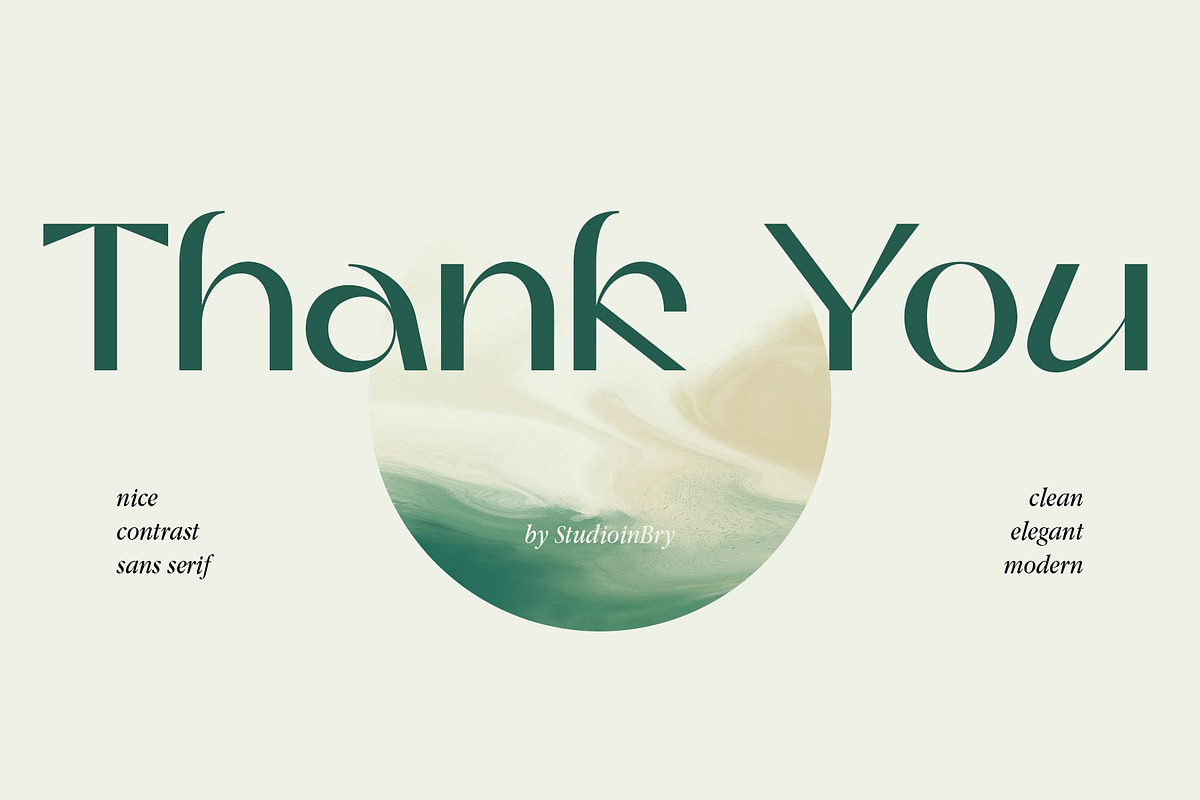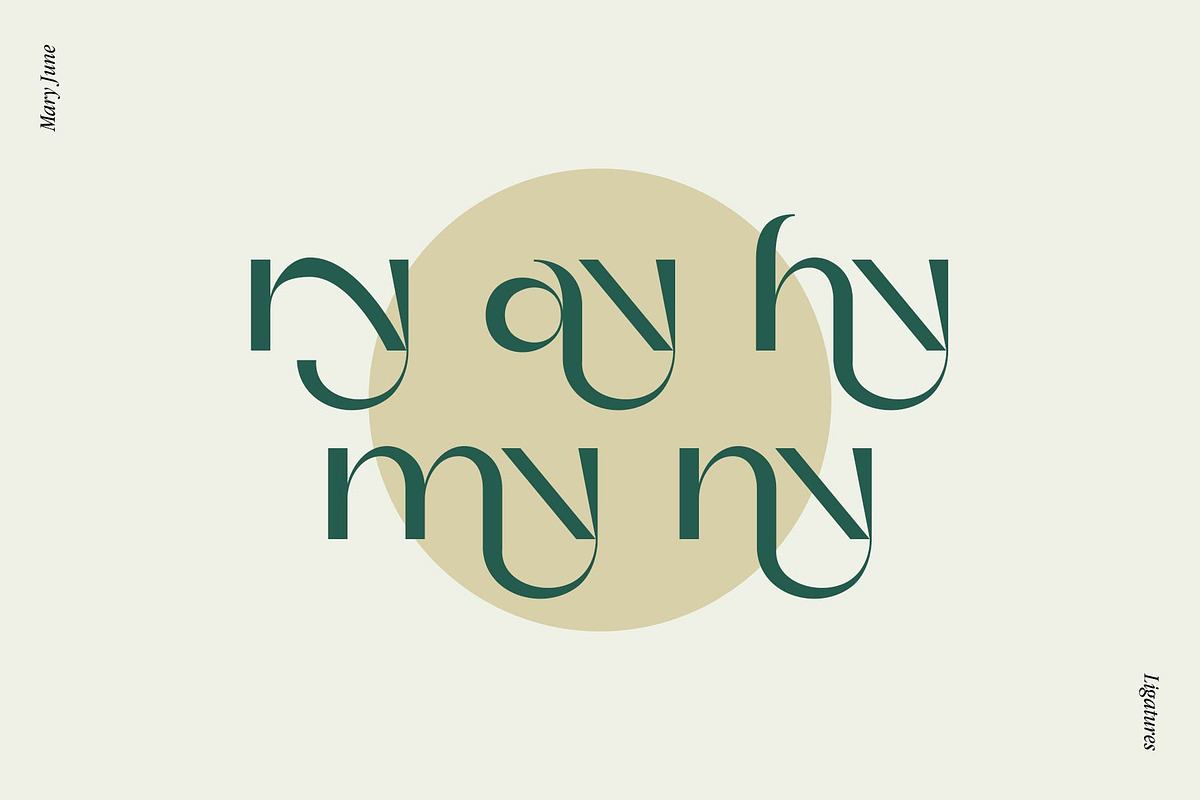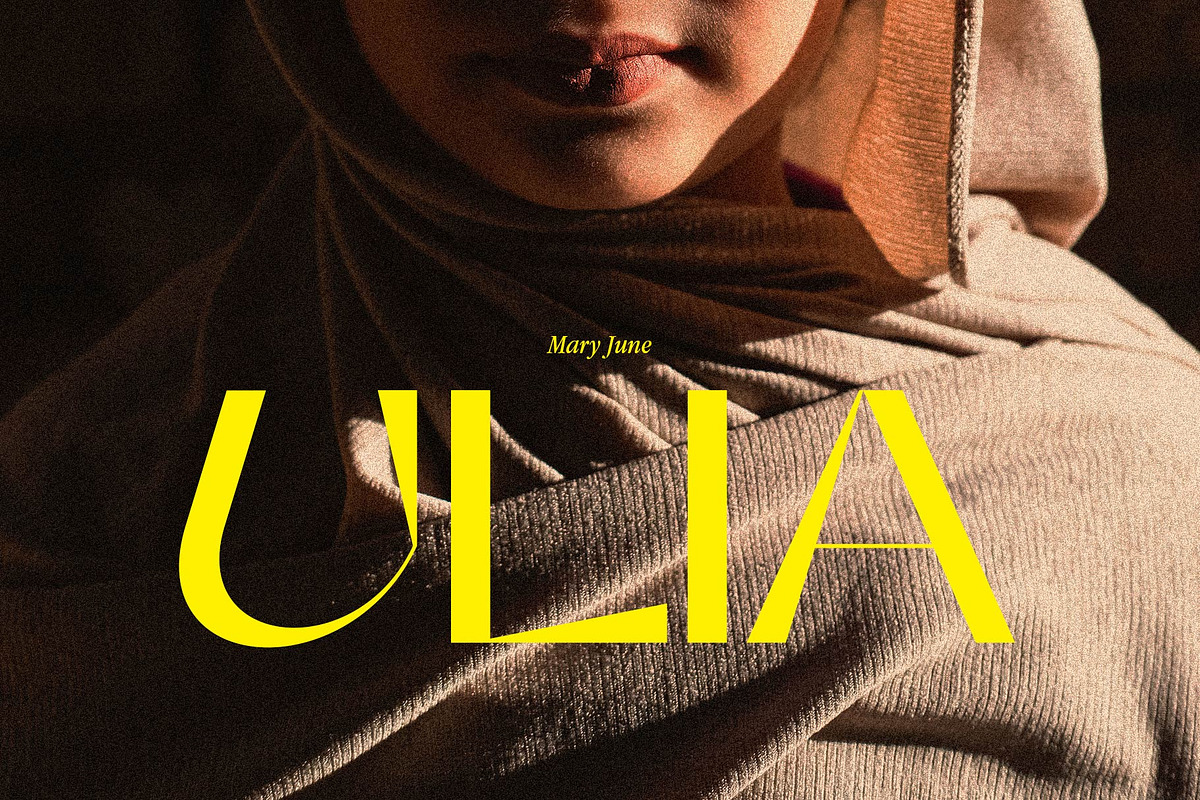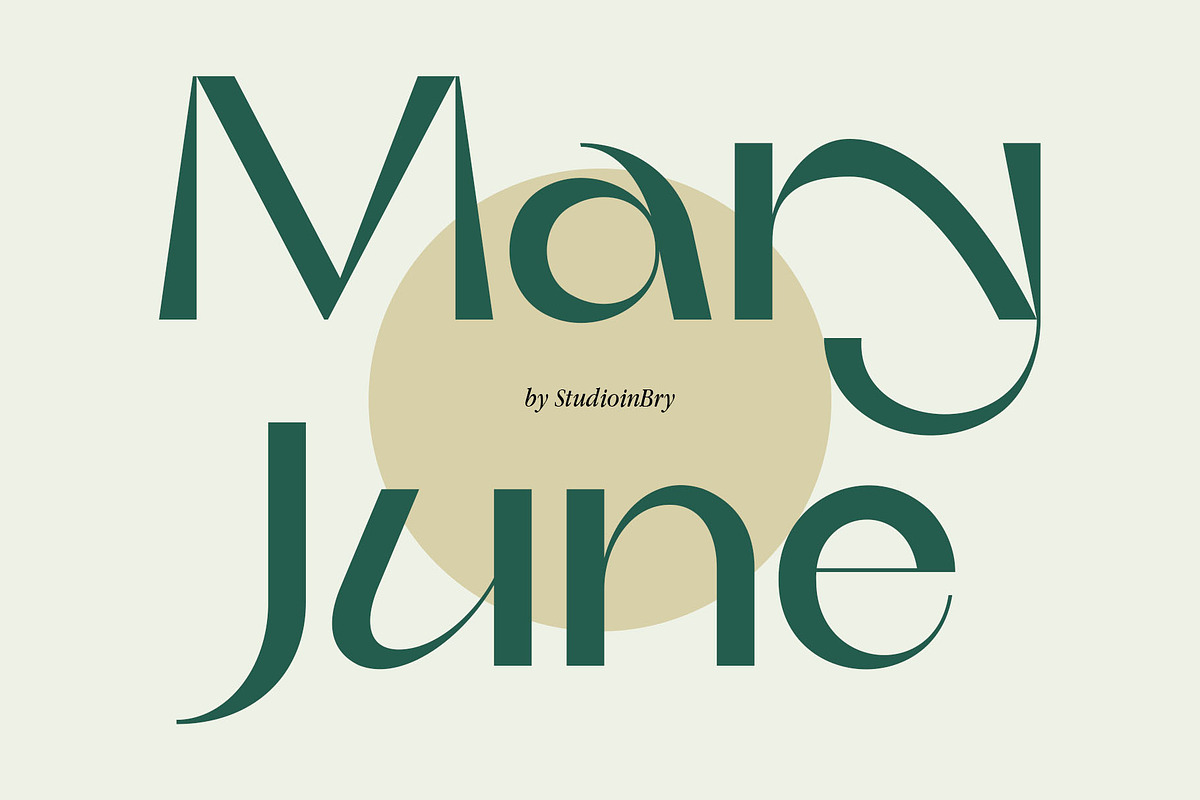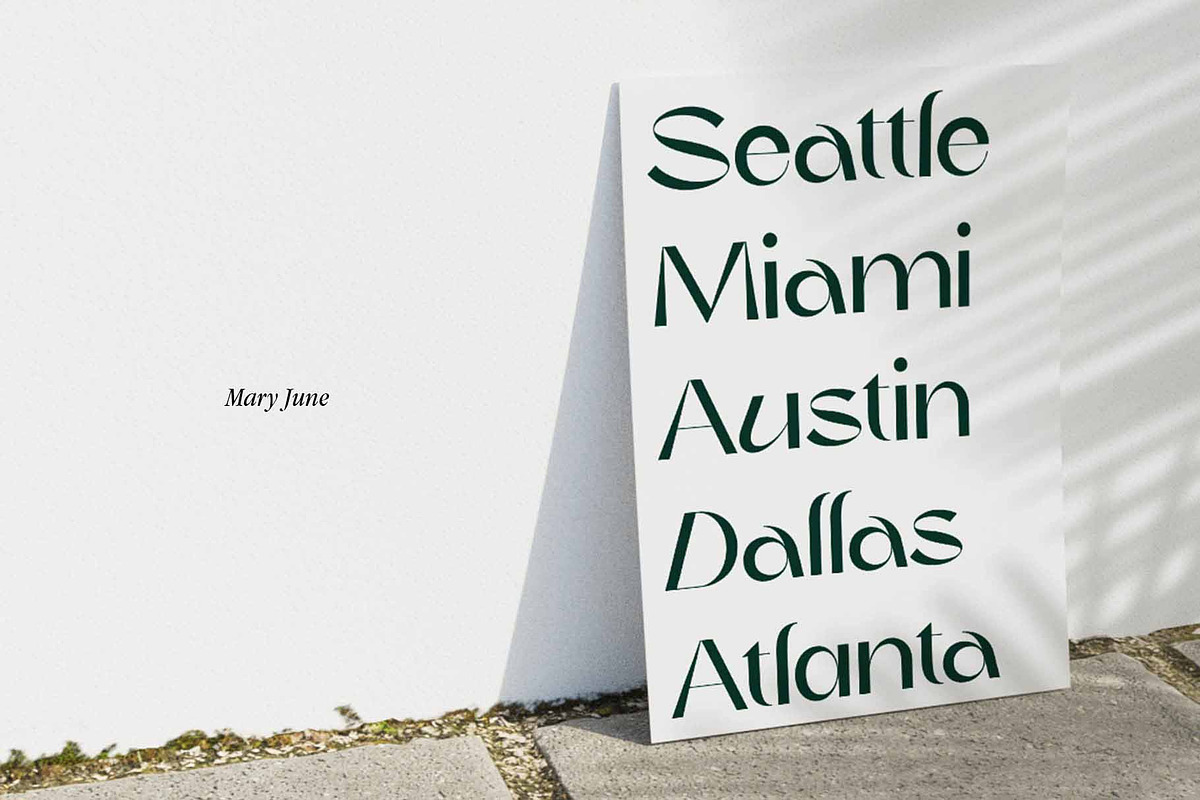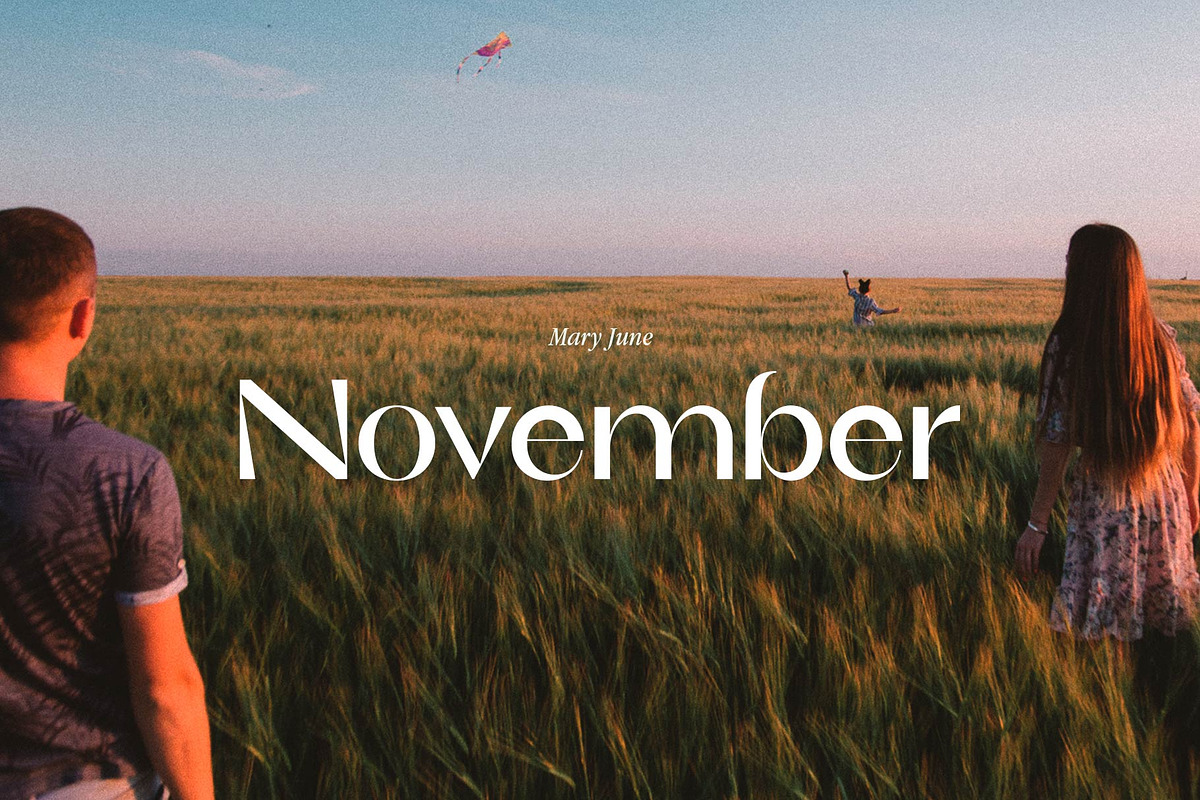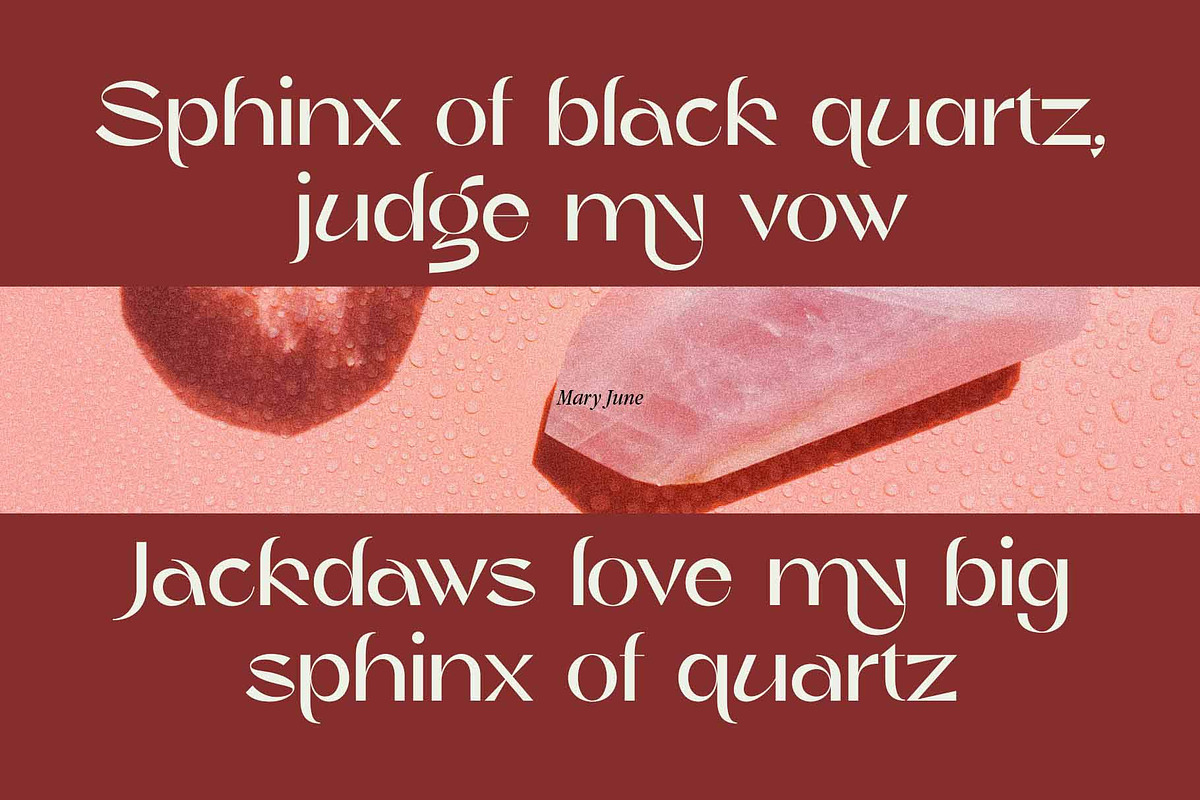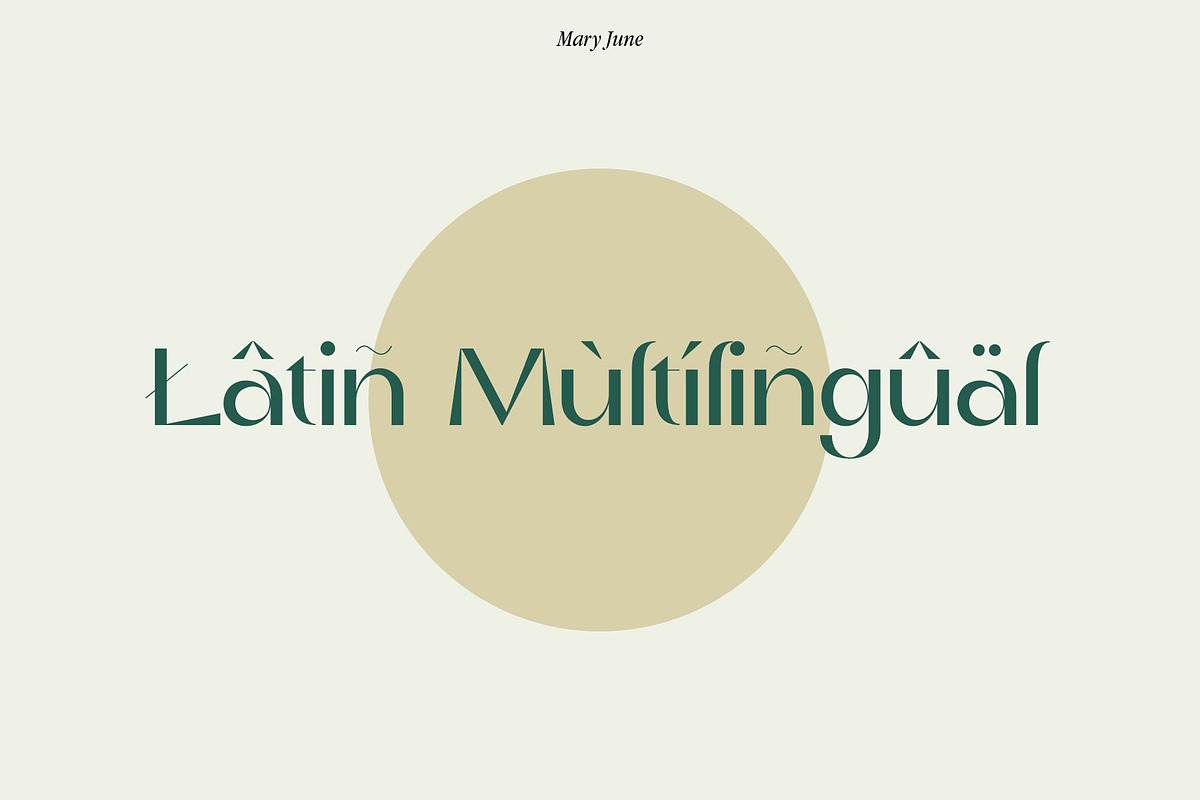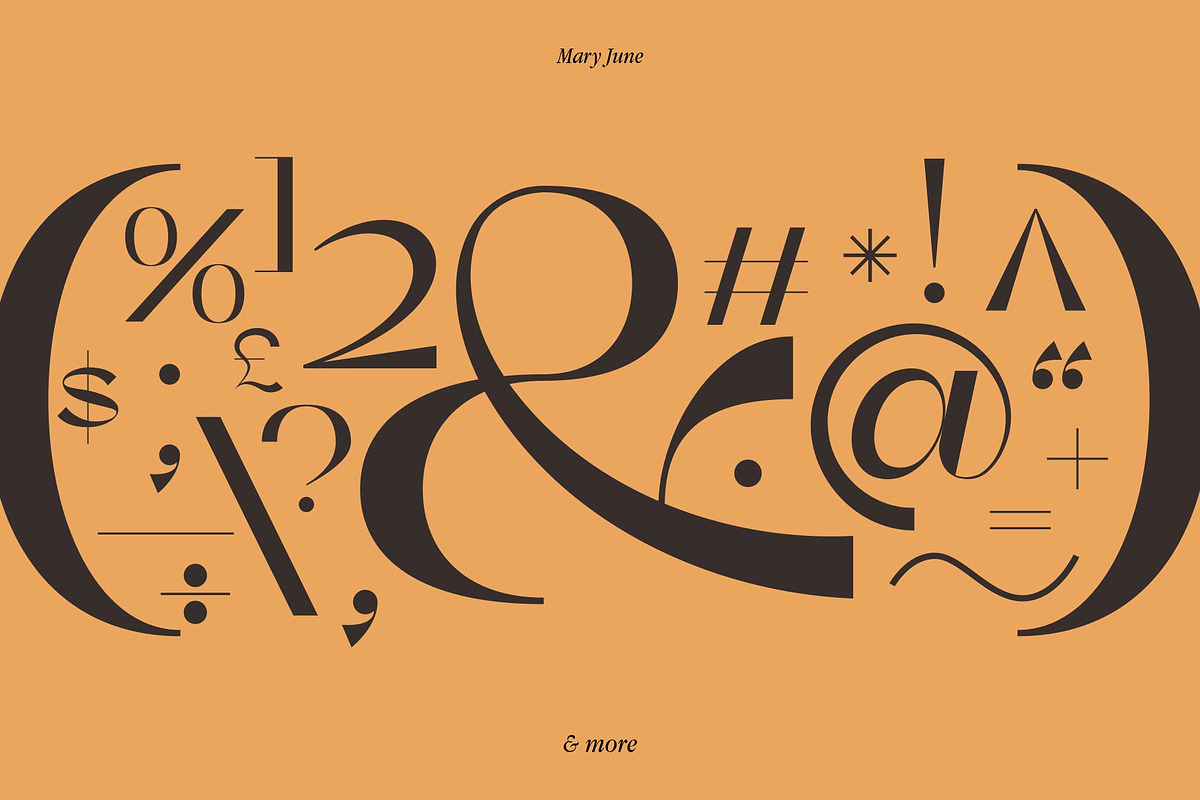
Mary June - A Modern Contrast Sans
Introducing Mary June sans serif. A high contrast, clean, elegant, modern font. You can use it for branding, social media, posters, packaging, & more.
UPPERCASE, Lowercase, Numbers, Punctuation.
Alternates & Ligatures.
Latin Multilingual Support.
Elevate your designs with Mary June Font, a sophisticated display font defined by sleek lines and refined curves. Crafted for high-end branding, editorial layouts, and luxury packaging, it delivers an effortless sense of class and exclusivity.